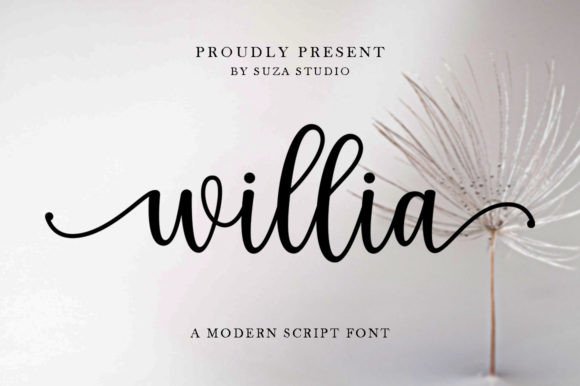
Welcome to the world of Willia, a script font that is nothing short of enchanting and utterly captivating. Willia is no ordinary font; it's a gateway to unleashing your creativity and transforming your words into exquisite works of art. As soon as you lay your eyes on Willia, you'll be captivated by its intricate details and elegant curves that dance across the page. Its delicate lines and seamless flow embody grace and sophistication, leaving you breathless with its beauty.
Crafted with meticulous care and attention to detail, Willia is the brainchild of Suza Studio, a team of passionate artists dedicated to creating fonts that ignite the imagination. Their artistic vision shines through in every letterform, bestowing Willia with a charm that is both timeless and utterly captivating.
Whether you're seeking the perfect font for your Instagram posts or yearning to add a touch of elegance to your DIY projects, Willia is the answer. Its versatility knows no bounds, allowing it to seamlessly blend into a myriad of designs, each with its own unique story to tell. Experience the magic of Willia and watch your creative ideas come to life like never before.
But Willia is more than just a font; it's an extension of your individuality, a reflection of your exquisite taste and discerning eye for beauty. With Willia at your fingertips, you hold the power to transform the ordinary into the extraordinary, leaving a lasting impression wherever your words may grace.
So, dear creative soul, embrace the allure of Willia and embark on a journey of artistic expression that will leave you spellbound. Let your imagination run wild as you witness the magic of Willia unfold before your eyes.